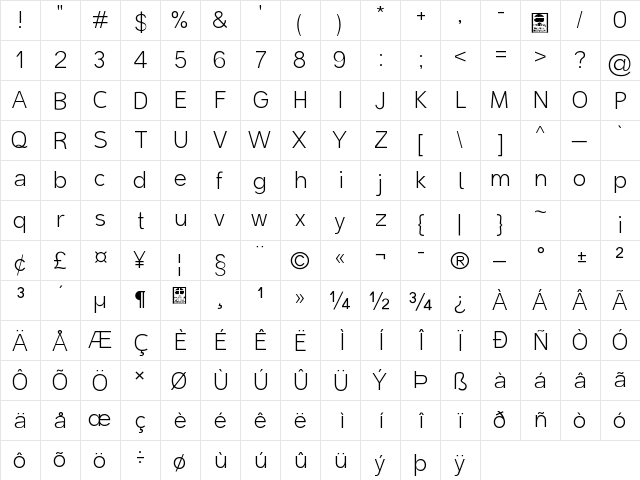
Malter Sans Light Demo Regular
Design Context for Malter Sans Light Demo Typeface
Malter Sans Light Demo is a composed and adaptable typeface that performs quietly and consistently across a wide range of design contexts. Its slender proportions lend an understated elegance to any composition.
Pro Tip: Use Malter Sans Light Demo in both headline and body roles to test its range before committing to a single application.